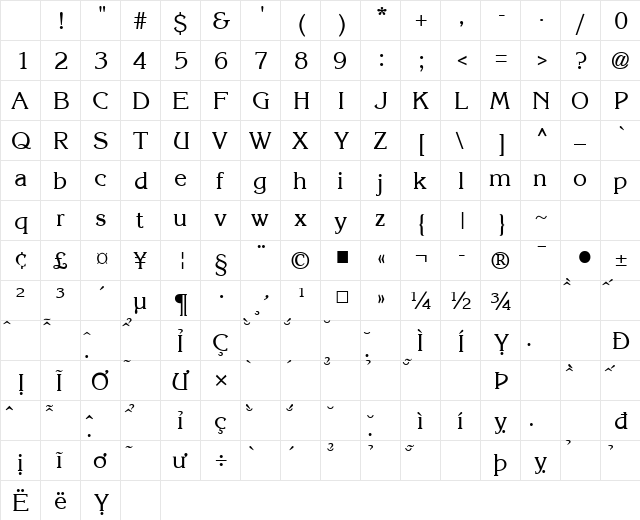
Complete VNI-Korin Normal glyph index. Displaying only characters natively supported by VNI-Korin Normal font.
VNI-Korin is a composed and adaptable typeface that performs quietly and consistently across a wide range of design contexts.